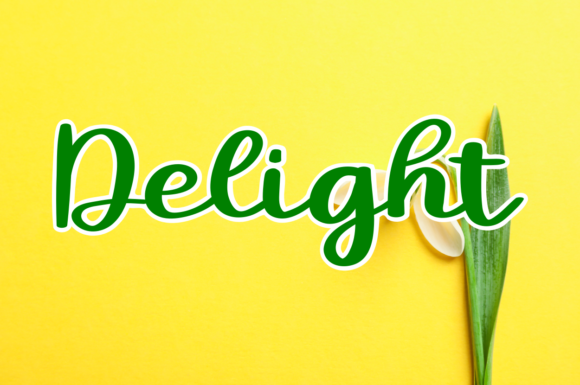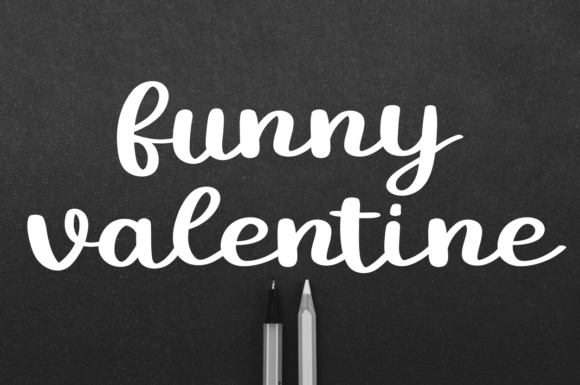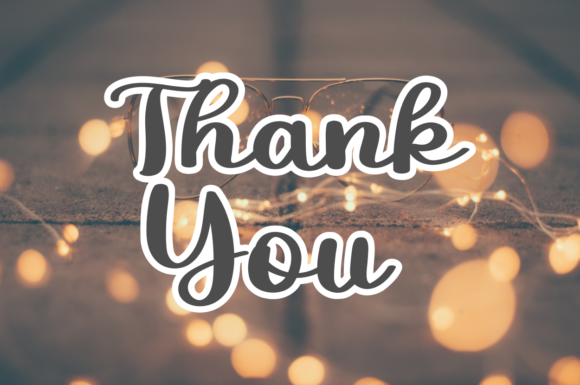
Introduction to Hellow Milea Font
Have you ever found yourself staring at a blank canvas, waiting for the perfect spark to ignite your creative project? For designers, this moment can be both exhilarating and daunting. But what if I told you that the perfect spark is just a font away? Enter the Hellow Milea Font, a delicate and fresh handwritten font that will transport you to a world of high-quality designs.
With its well-rounded letters and transparent background, the Hellow Milea Font is a design resource like no other. This free download is perfect for designers looking to add a touch of elegance and sophistication to their creative projects. Whether you’re working on a personal or professional project, the Hellow Milea Font is sure to make a lasting impression.
As a valuable addition to any designer’s toolkit, the Hellow Milea Font offers endless possibilities for creative expression. So why settle for ordinary when you can have extraordinary? Discover the magic of the Hellow Milea Font and take your designs to the next level.
Key Features of Hellow Milea Font
- High-quality design with a transparent background, ideal for creative projects.
- Includes a comprehensive set of glyphs and characters, perfect for a wide range of creative applications.
- Designed with a modern aesthetic, Hellow Milea Font is suitable for use in various design contexts, from digital to print.
- Perfect for designers, artists, and creatives looking for a unique and stylish font to elevate their projects.
Honest Review: Hellow Milea Font
I recently had the chance to try out the Hellow Milea Font, and I must say it’s a solid addition to any design resource. The high-quality design and transparent background make it a great choice for creative projects.
Here are some of the things that work well for this font:
- ✨ Sleek and modern design that’s perfect for contemporary projects
- ✨ Easy to read, even in smaller font sizes
However, I did notice a few limitations:
- ⚠️ Limited font styles and variations
- ⚠️ Not ideal for projects that require a lot of bold or italic text
Overall, I’m impressed with the Hellow Milea Font. It’s a great free download that can add a touch of elegance to your design project. While it may not be the most versatile font out there, it’s definitely worth considering for your next creative project.
Tips for Getting the Most Out of Hellow Milea Font
To get the most out of the Hellow Milea Font, use it on a transparent background to create a unique and eye-catching design. This font is perfect for creative projects, such as graphic design, branding, and digital art.
The Hellow Milea Font is commonly used for:
Logo design
Business cards
Social media graphics
Website design